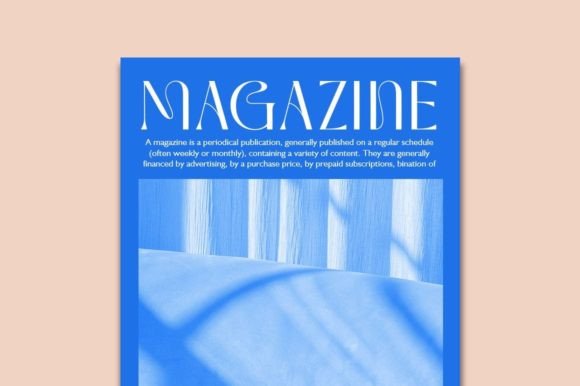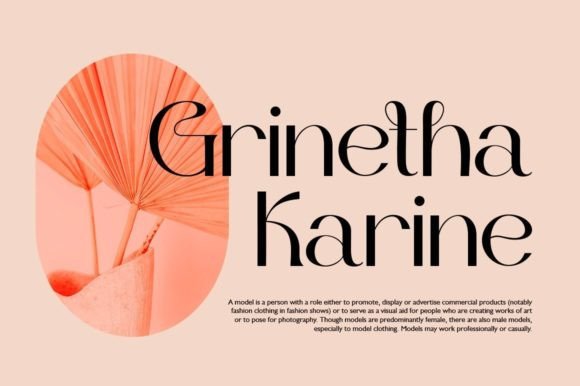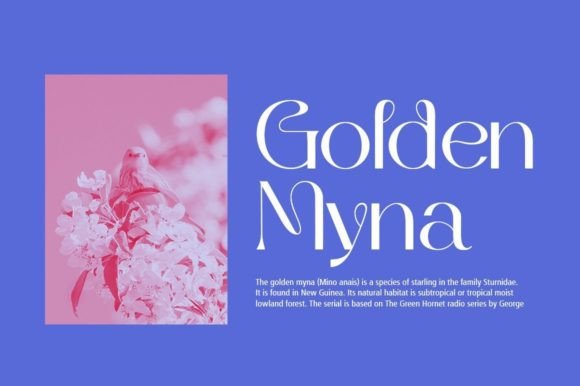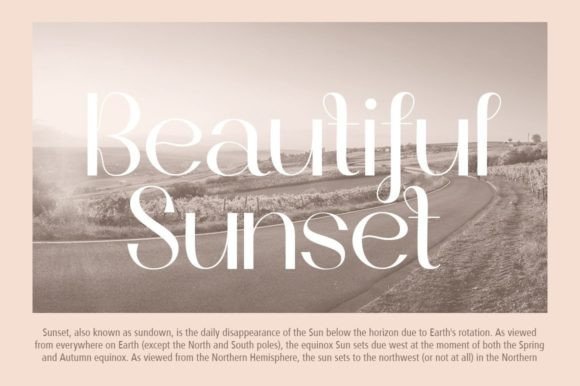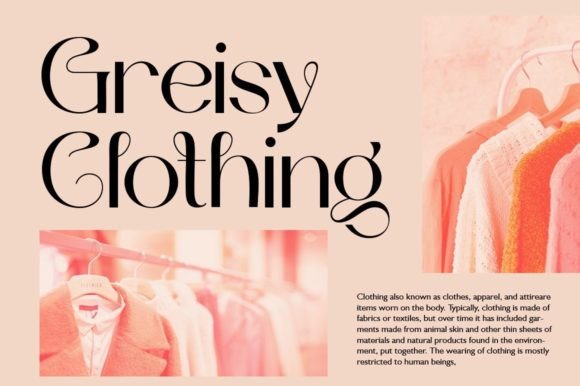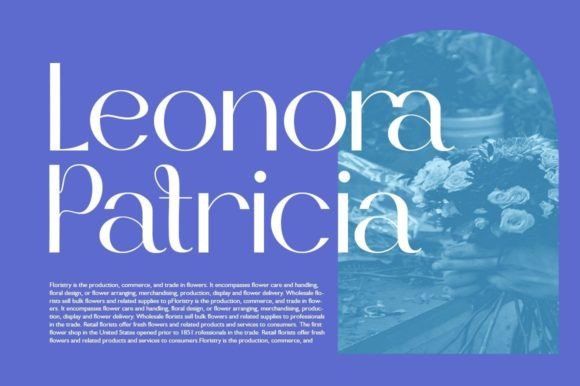
Introducing Gradiyla Font: Elevate Your Designs with Luxury and Elegance
In the world of typography, a font can make or break a design. For those seeking to add a touch of luxury and sophistication to their creations, Gradiyla Font is an exceptional choice. This stunning display serif font combines geometric shapes with organic curvy details, resulting in a unique typeface that embodies individual personality. Inspired by both old-style serif and contemporary serif fonts, Gradiyla offers a distinctive look that is sure to elevate your designs.
Unique Characteristics of Gradiyla Font
Gradiyla Font boasts several unique characteristics that set it apart from other typefaces. One of its most striking features is the extreme contrast between thick and thin strokes, which gives it a harmonic and stylish appearance. This elegant and sensual didone serif font is further enhanced by ligatures, adding an extra layer of sophistication to your designs.
With its luxurious feel, Gradiyla Font is perfect for a wide range of applications. Whether you’re designing greeting cards, magazines, wedding invitations, logos, or websites, this font is sure to make a lasting impression. Its versatility and elegance make it an ideal choice for designers and crafters looking to add a touch of luxury to their work.
Inspiration and Design
Gradiyla Font draws inspiration from both old-style serif and contemporary serif fonts, resulting in a unique and distinctive look. The font’s design combines geometric shapes with organic curvy details, creating a typeface that is both elegant and sophisticated. The result is a font that exudes luxury and refinement, making it perfect for high-end designs.
Why Choose Gradiyla Font?
So, why choose Gradiyla Font for your designs? Here are just a few reasons:
• Luxurious and elegant: Gradiyla Font exudes luxury and sophistication, making it perfect for high-end designs.
• Unique and distinctive: The font’s unique combination of geometric shapes and organic curvy details sets it apart from other typefaces.
• Versatile: Gradiyla Font is perfect for a wide range of applications, from greeting cards to websites.
In conclusion, Gradiyla Font is an exceptional choice for designers and crafters seeking to add a touch of luxury and sophistication to their creations. With its unique characteristics, elegant design, and PUA encoding, this font is sure to elevate your designs and make a lasting impression. Whether you’re working on a high-end branding project or a personal craft, Gradiyla Font is the perfect choice for those who demand the best.